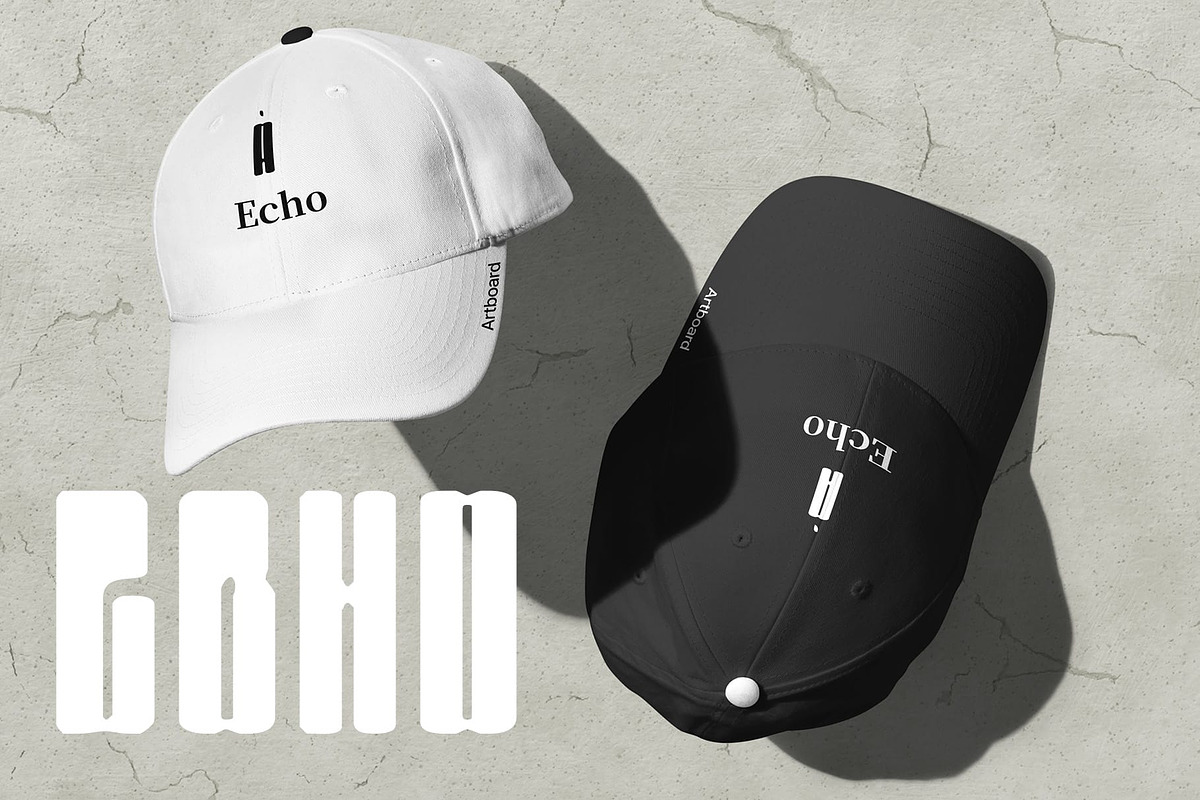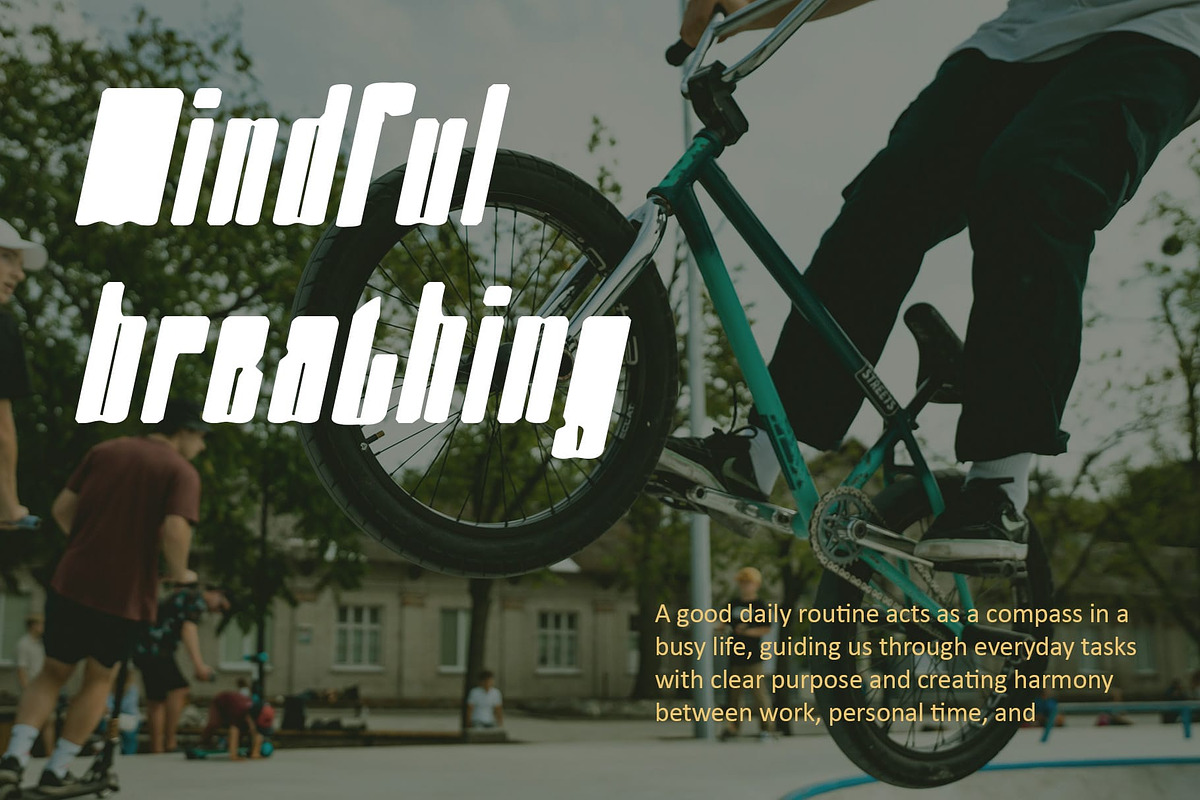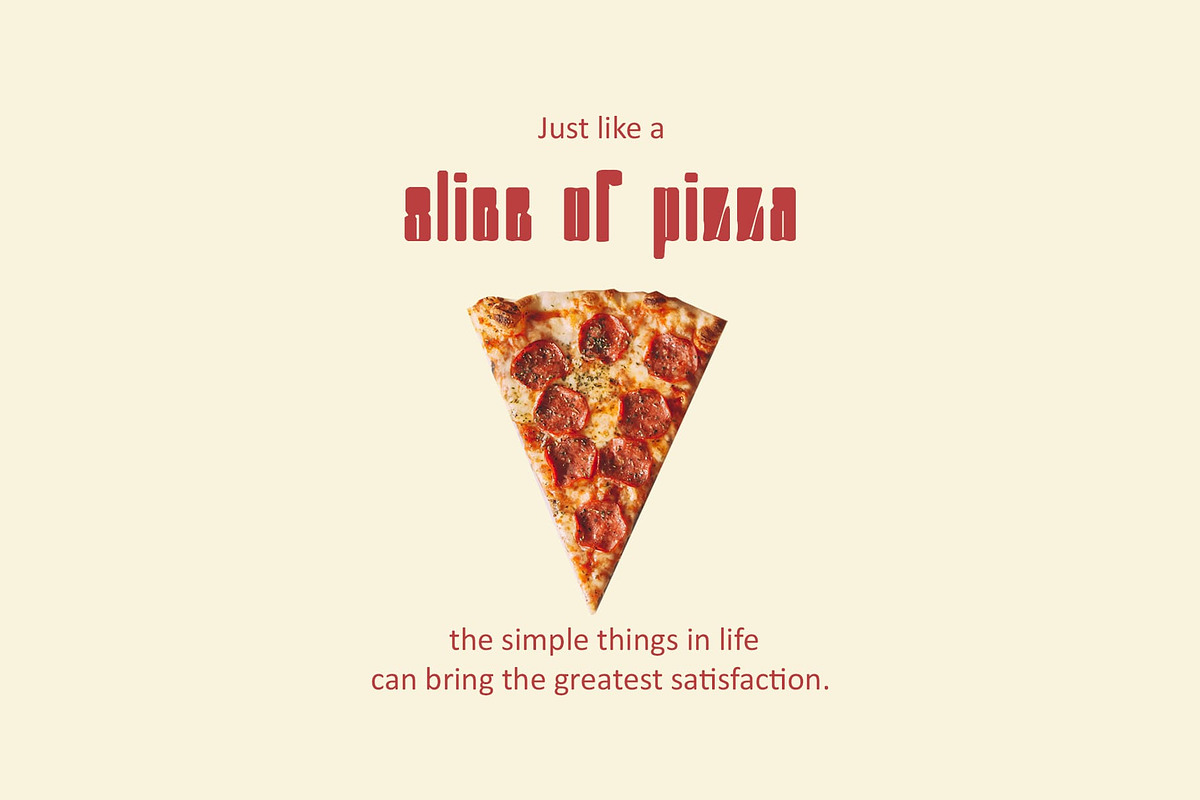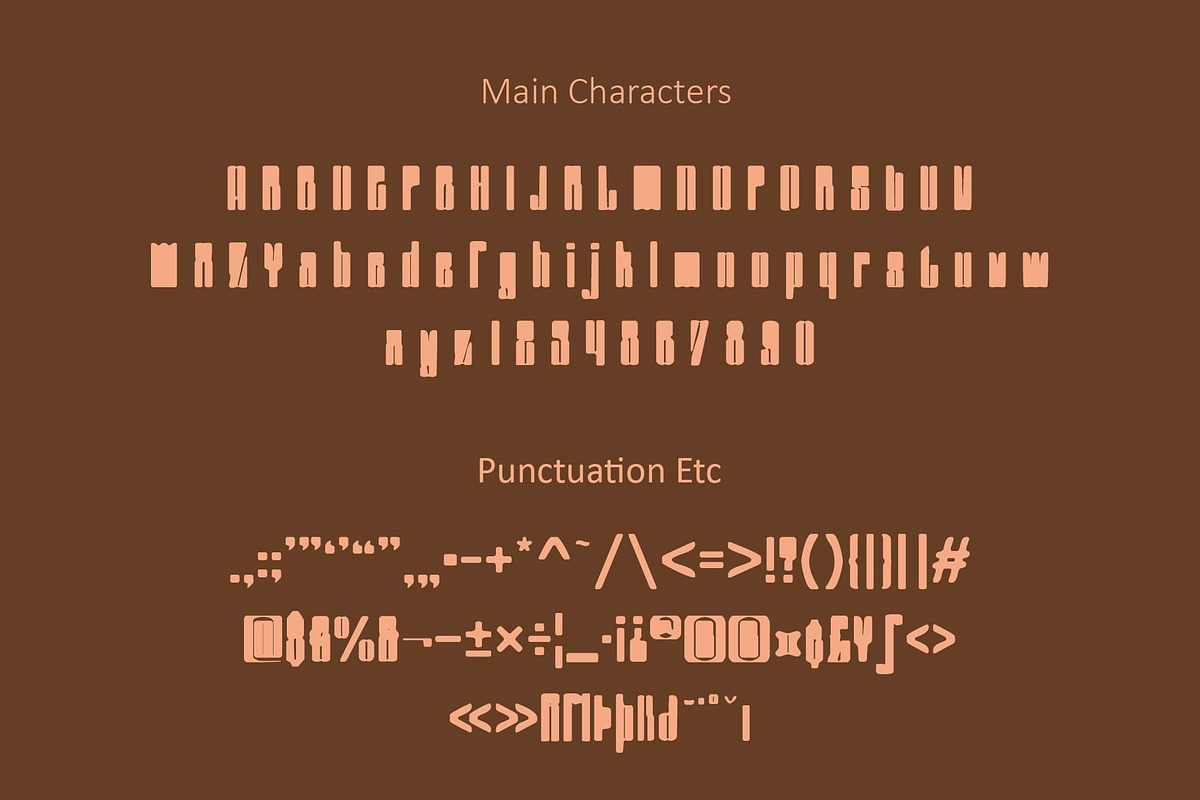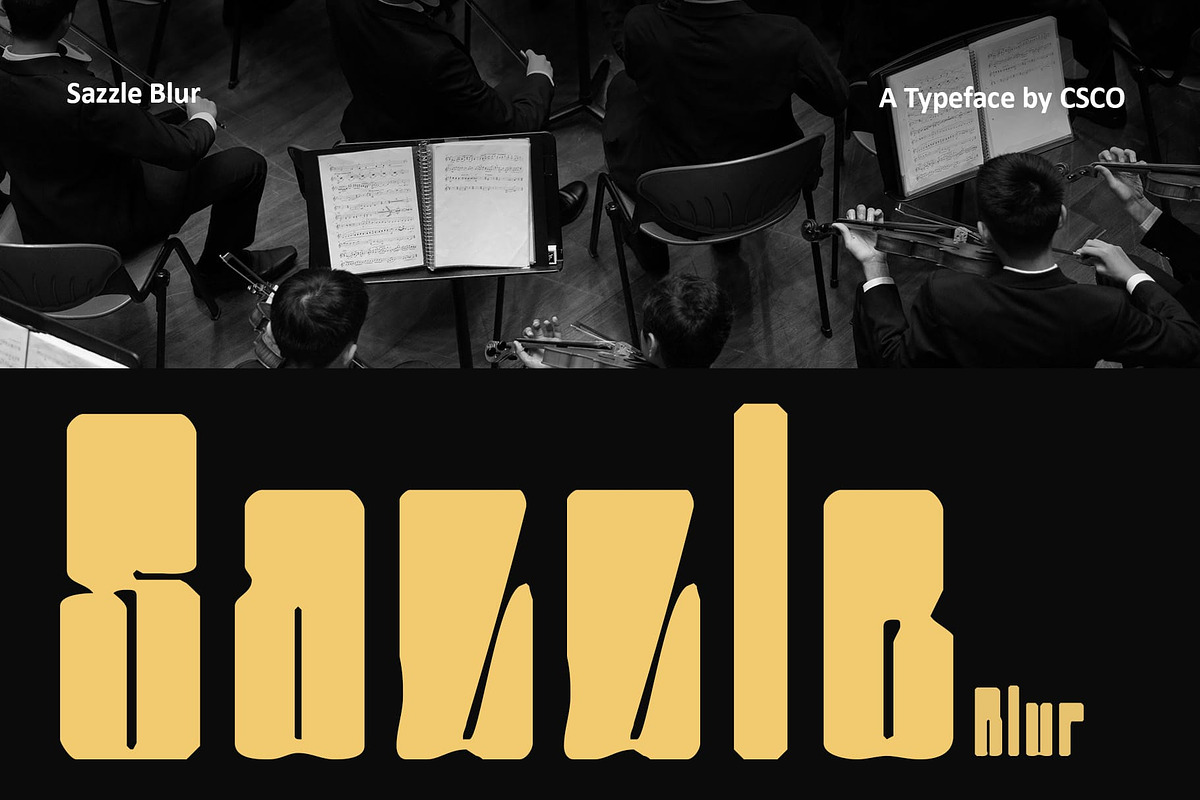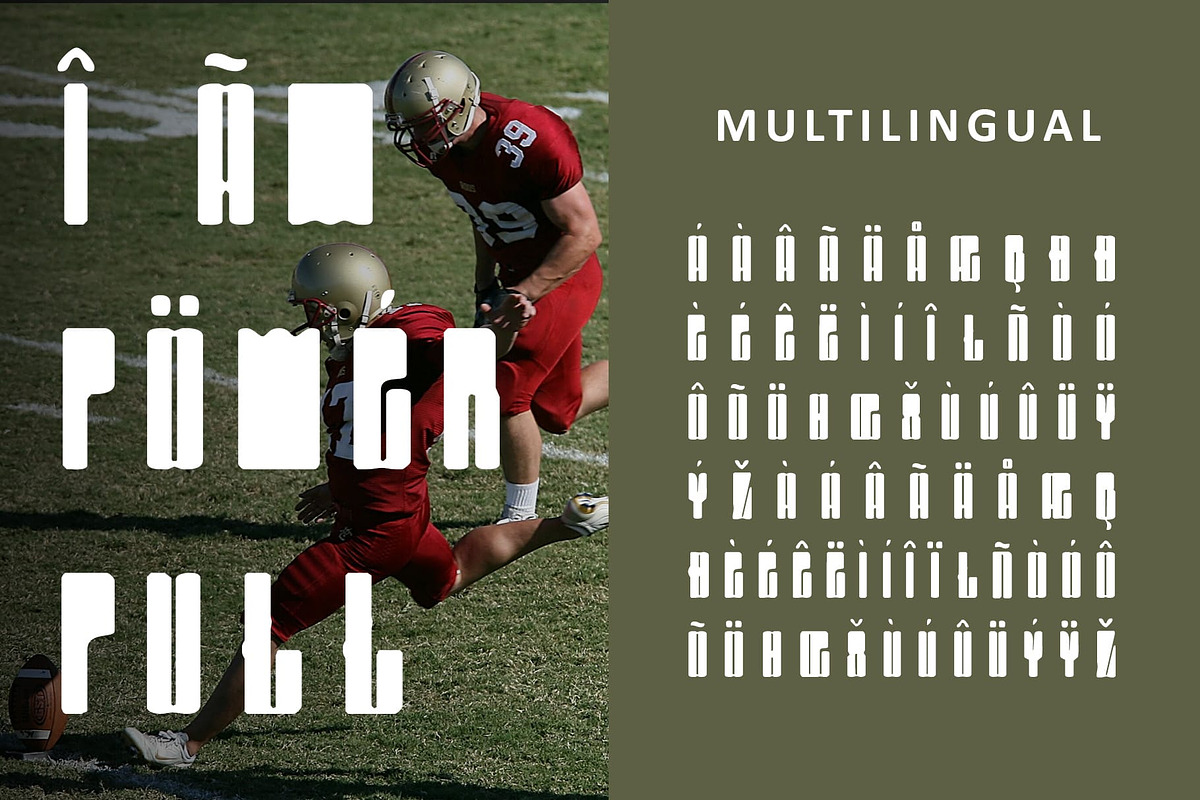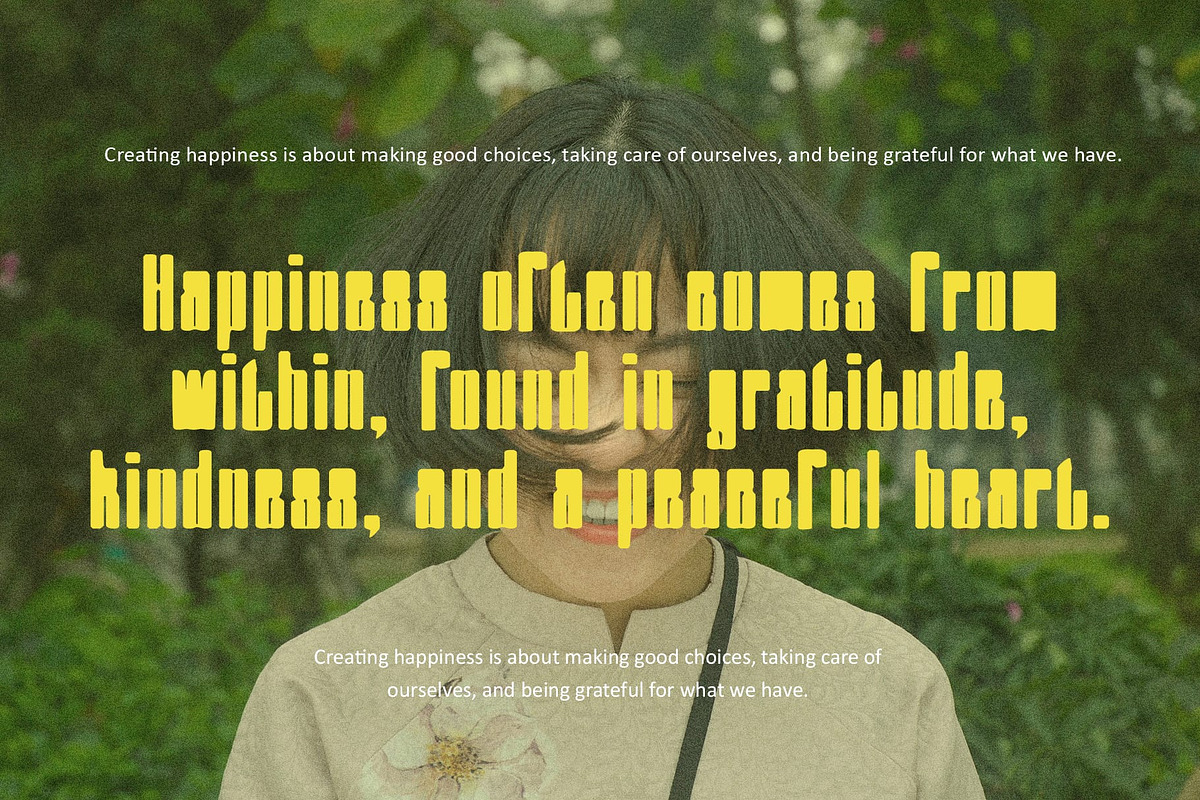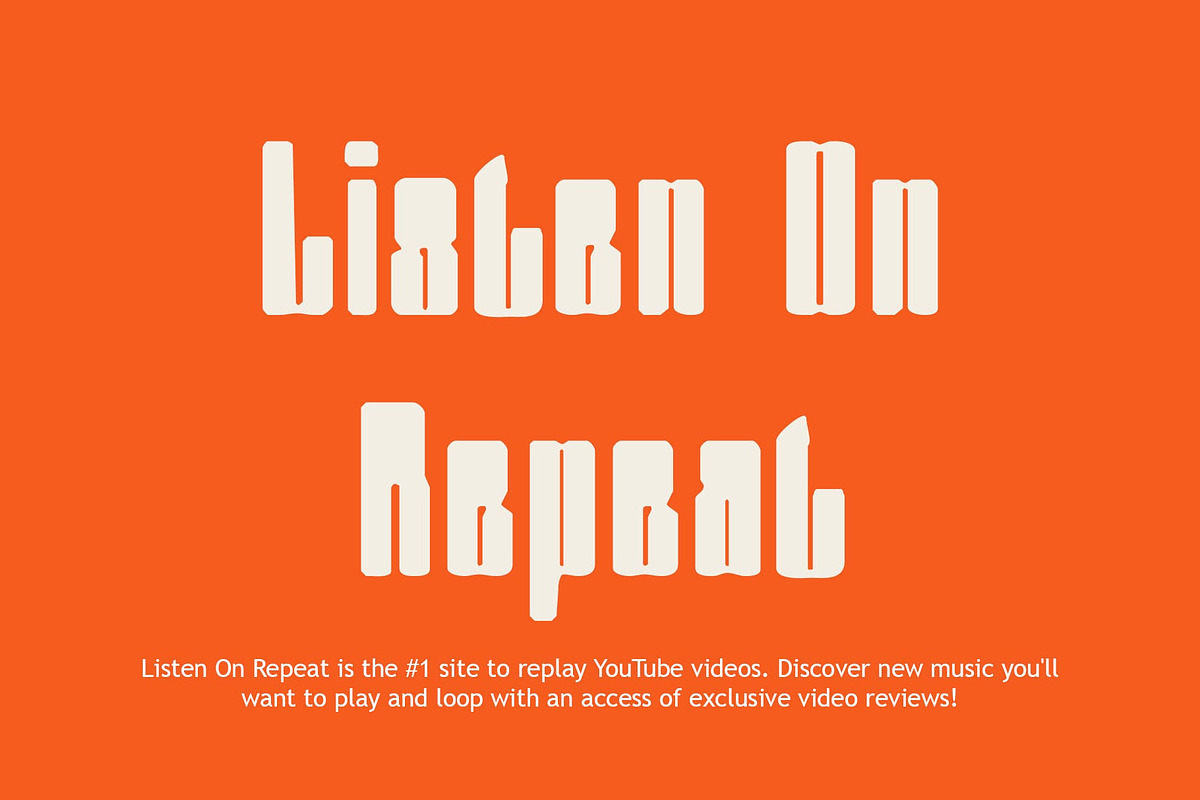
Sazzle Blur
Sazzle Blur Font: Bold Modernity with a Dynamic Touch
Strong and Assertive Design Sazzle Blur is a striking sans serif font that features a bold and condensed design, delivering a powerful and assertive impression. Its robust letterforms are crafted to capture attention and convey a sense of confidence, making it an excellent choice for designs that need to stand out. The compact shape ensures visibility and clarity, making Sazzle Blur suitable for various applications, from impactful posters to memorable branding.
Dynamic Blur Effect for Enhanced Visual Depth The distinctive blur effect applied to Sazzle Blur creates a modern and dynamic appearance, adding an engaging sense of depth to each character. This unique aesthetic element not only enhances the font’s visual appeal but also injects a layer of sophistication into the design. The blur effect transforms the bold letterforms into a captivating experience, making the font perfect for contemporary projects that aim to make a statement.
Versatile Applications for Impactful Design Sazzle Blur is highly versatile, ideal for a wide range of design applications. Whether used for advertising campaigns, event promotions, or brand identities, its bold presence ensures that your message is conveyed with clarity and strength. The combination of its condensed structure and dynamic blur makes it particularly effective in environments where visibility is paramount.